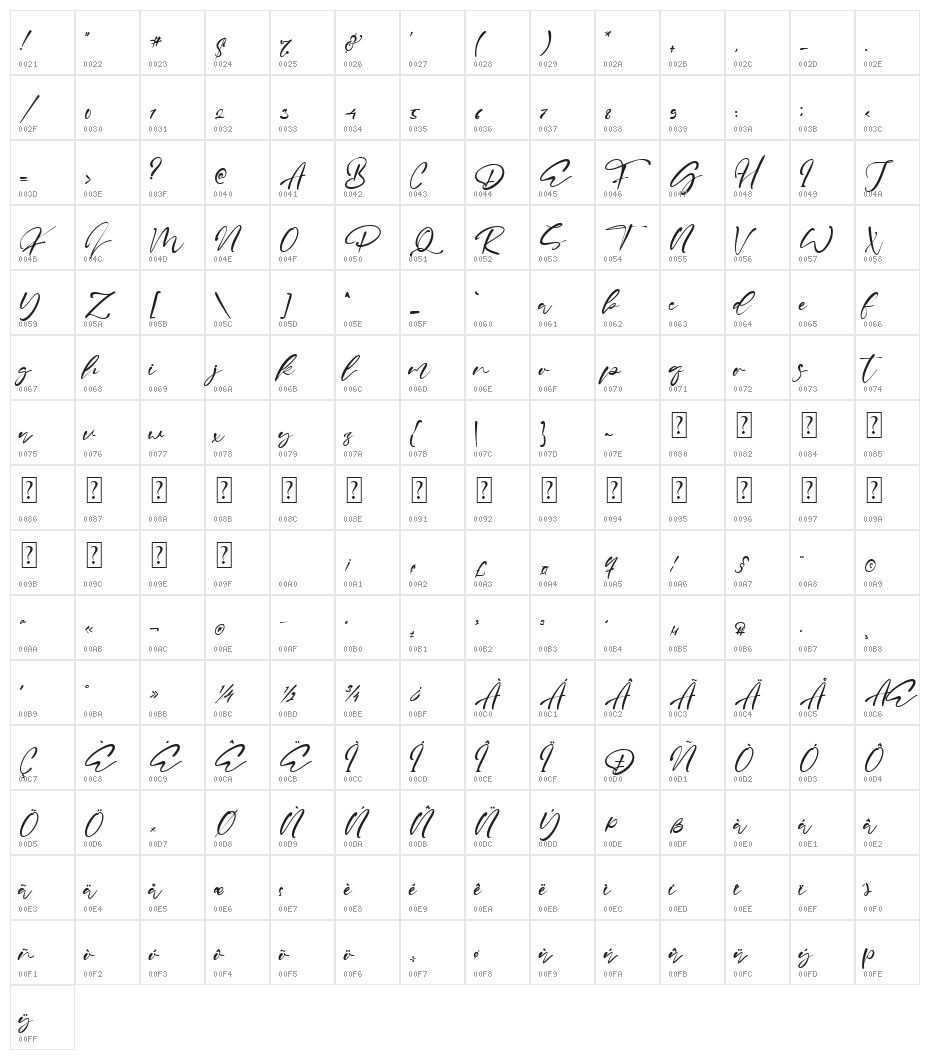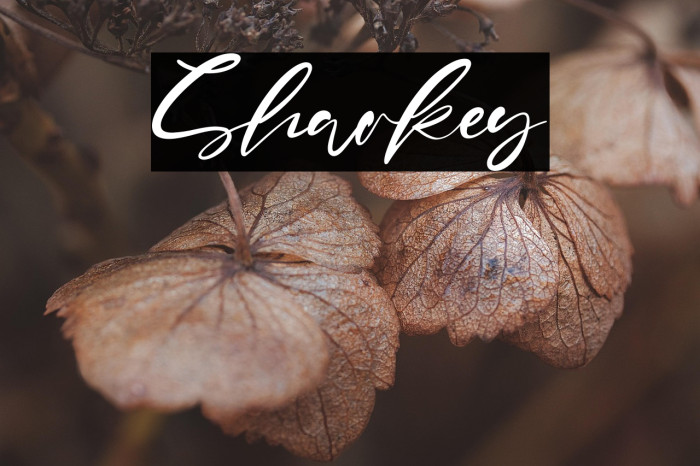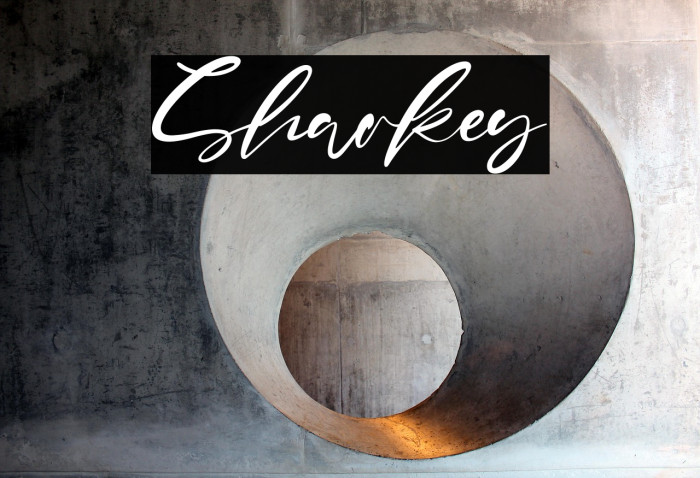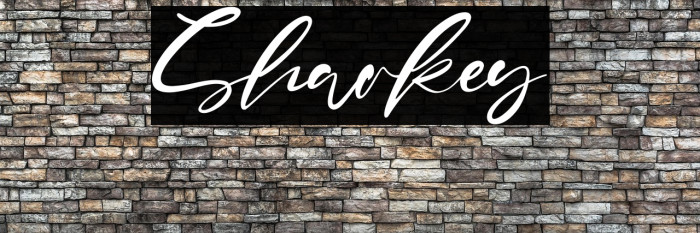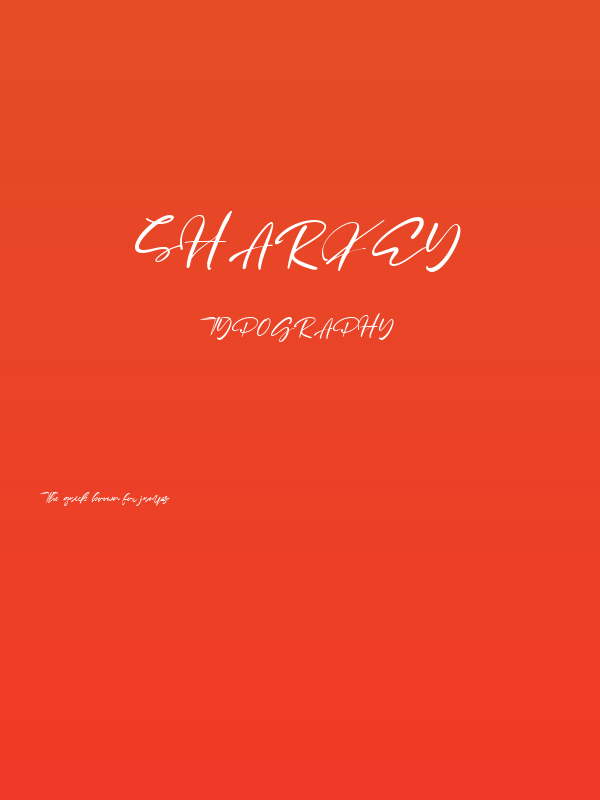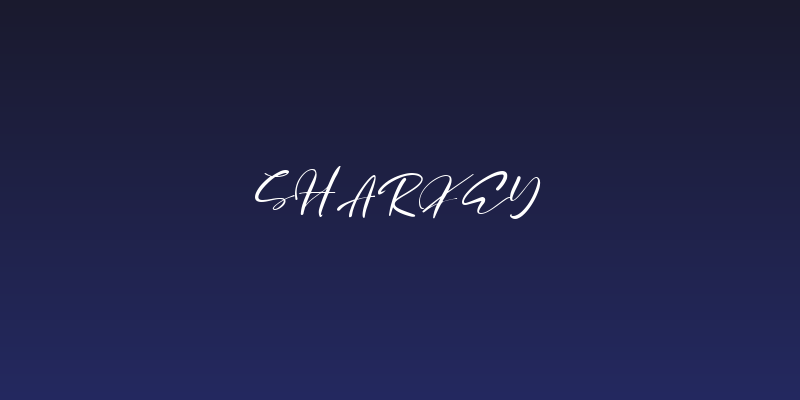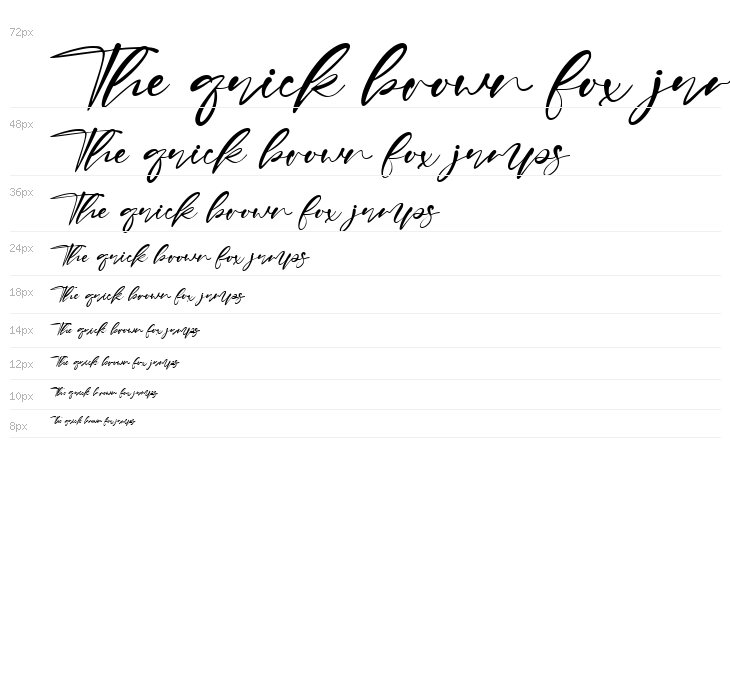
Sharkey Font
Sharkey Description
This font features a dynamic and fluid script style, characterized by its elegant and flowing letterforms. The uppercase letters exhibit a graceful, cursive design with smooth curves and a slight slant, while the lowercase letters maintain a consistent rhythm and fluidity. The numerals and special characters complement the overall aesthetic, adding a touch of sophistication and charm. The strokes vary in thickness, providing a medium contrast that enhances readability while maintaining an artistic flair. This font is perfect for projects that require a personal and stylish touch.
| Overall Style | Elegant |
| Use Case | Logos, Invitations, Branding |
| Proposed Projects | Ideal for wedding invitations, branding, greeting cards, and elegant packaging designs. |